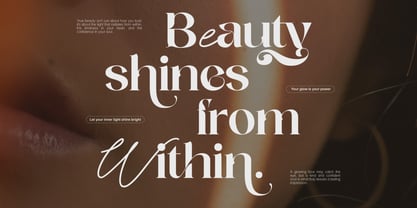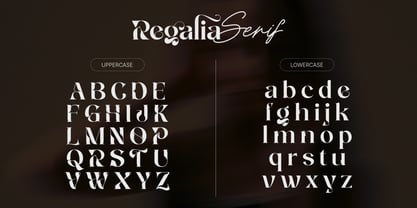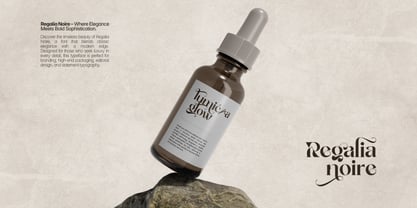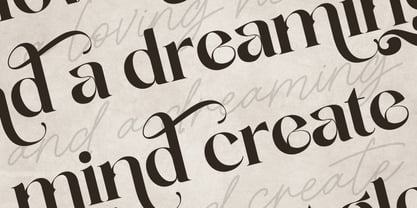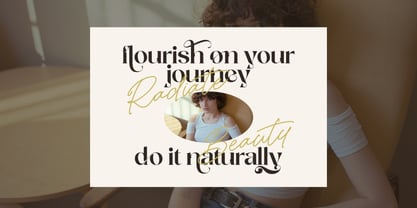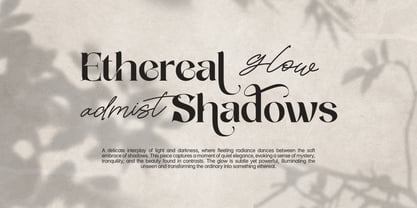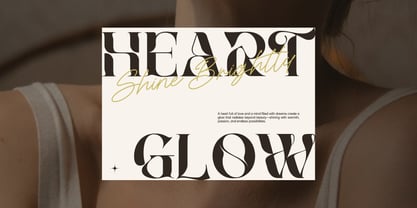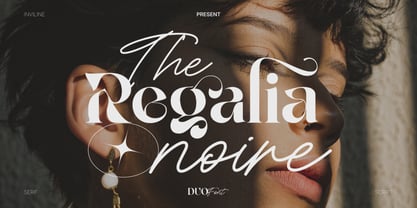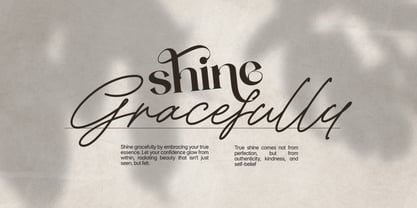
Regalia Noire Pro
by Inviline
The Regalia Noire Pro Font Family was designed by Virgiawan Listanto and published by Inviline. Regalia Noire Pro contains 2 styles and family package options.
Introducing The Regalia Noire, where classic elegance meets modern fluidity. This duo font seamlessly blends a refined serif typeface with a graceful script, offering unparalleled versatility for branding, invitations, and more.